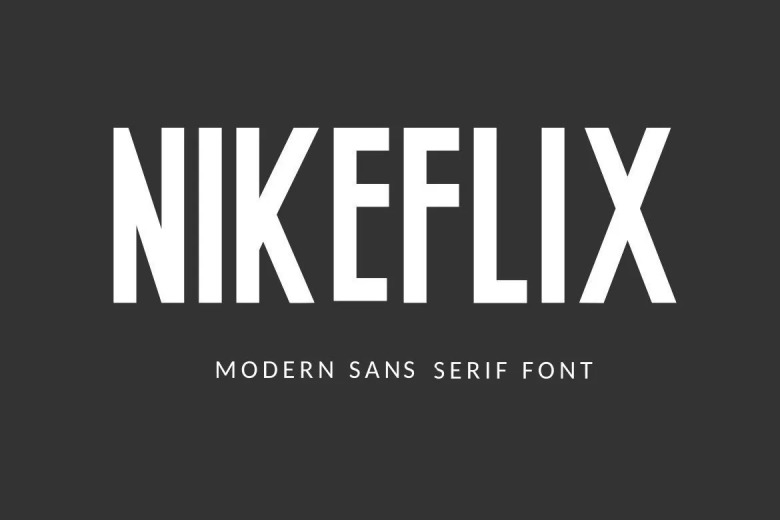
Nikeflix Font
Nikeflix is a sans serif typeface that is bold and simple. This beautiful, professional typeface can be used on film posters, headings, block letters fonts subheadings and logo designs and everything!
Nikeflix Sans Serif Font